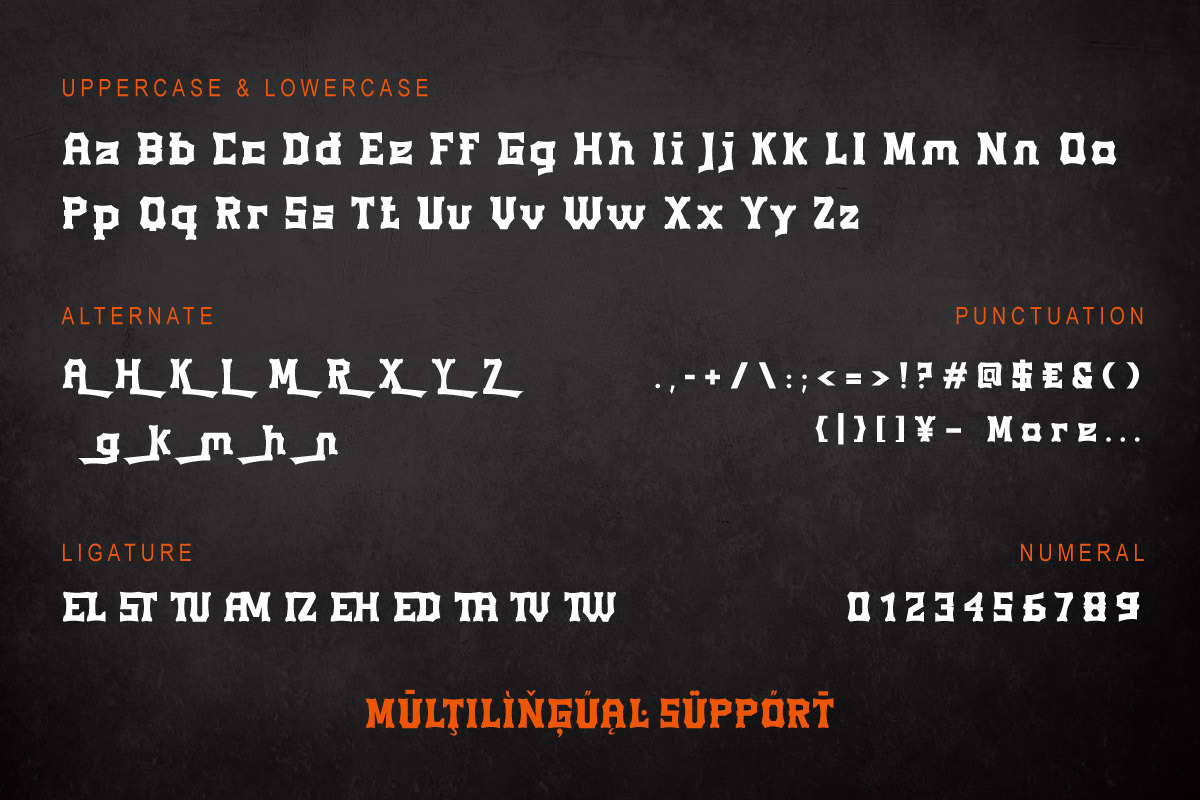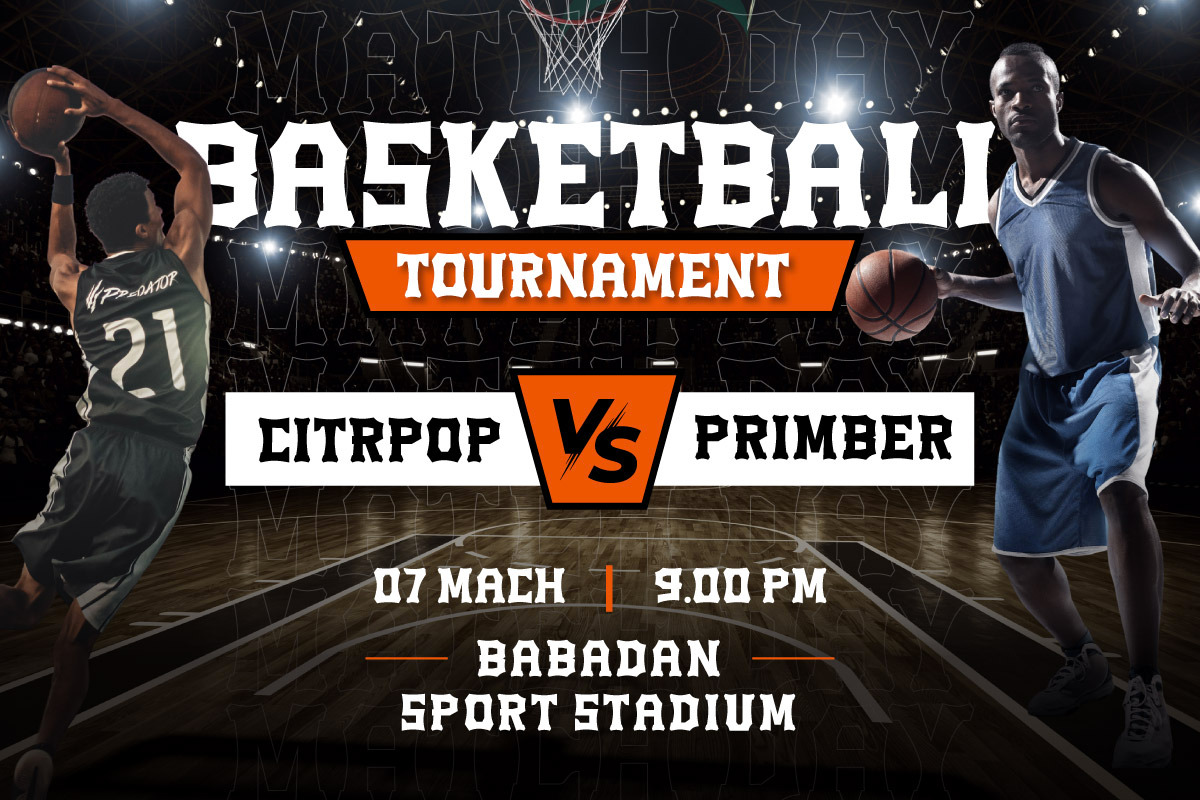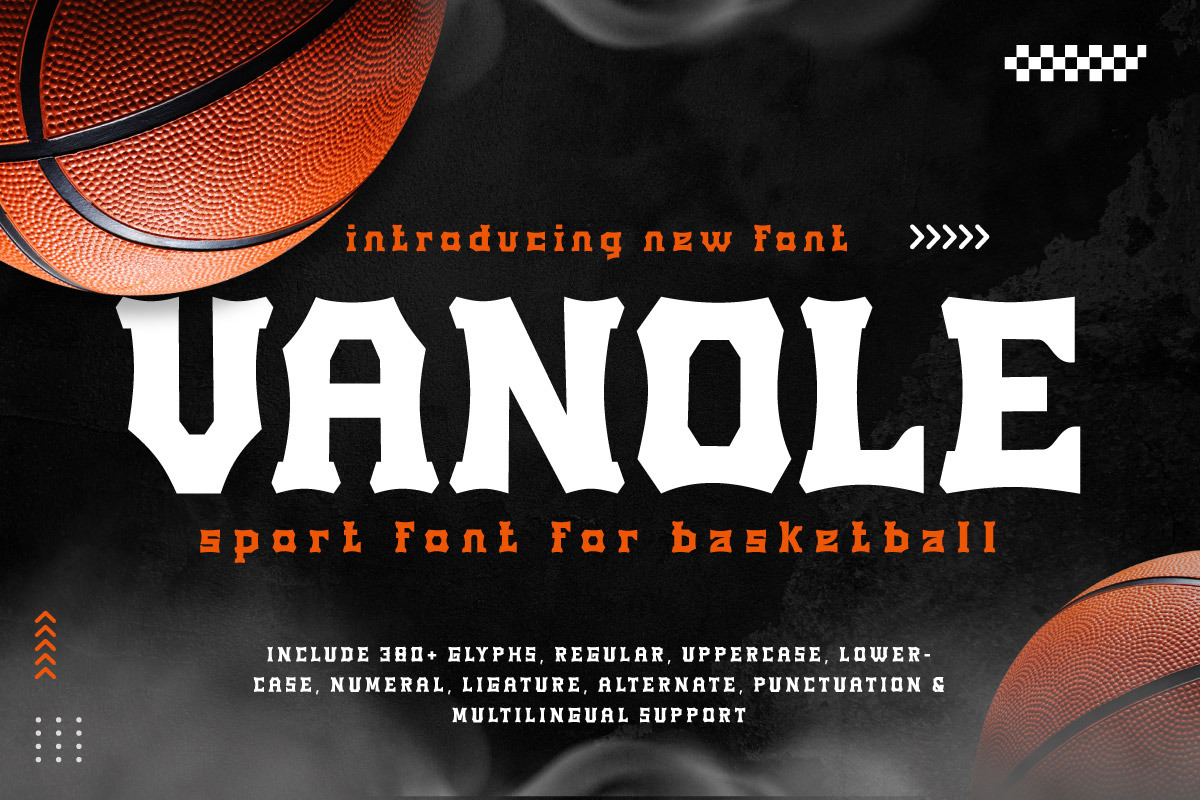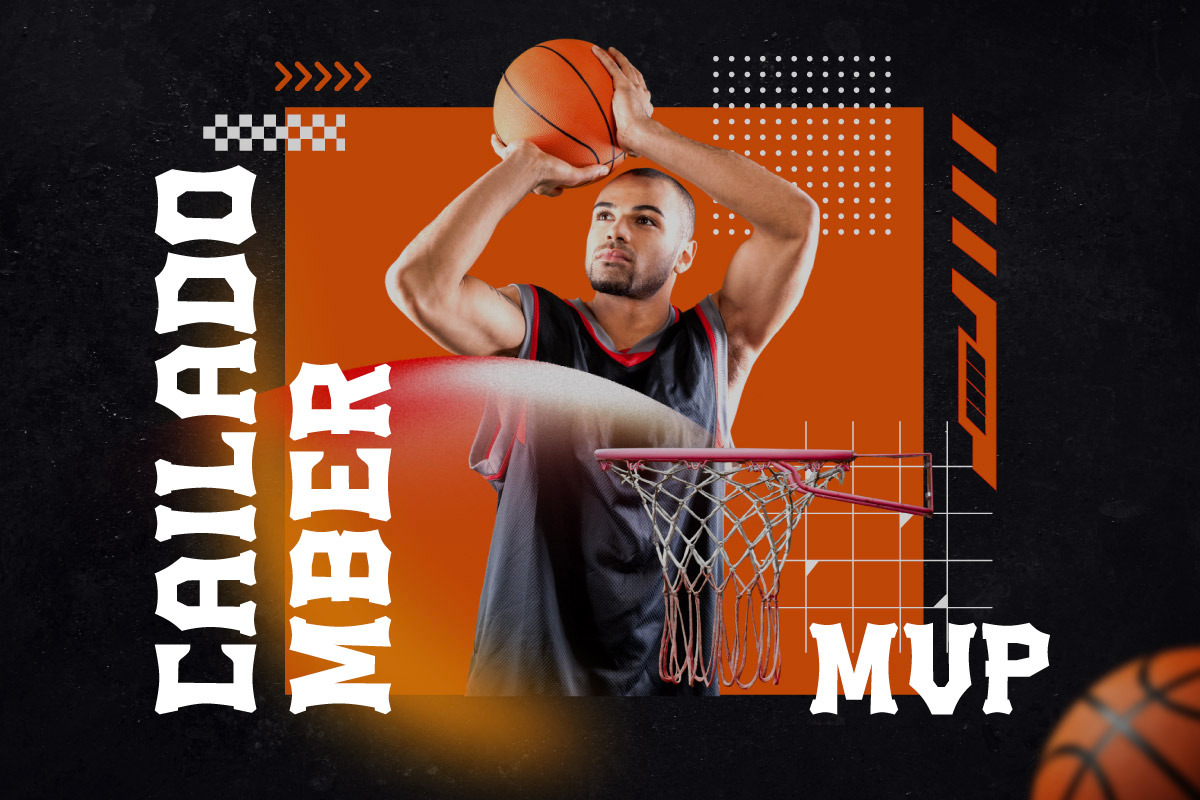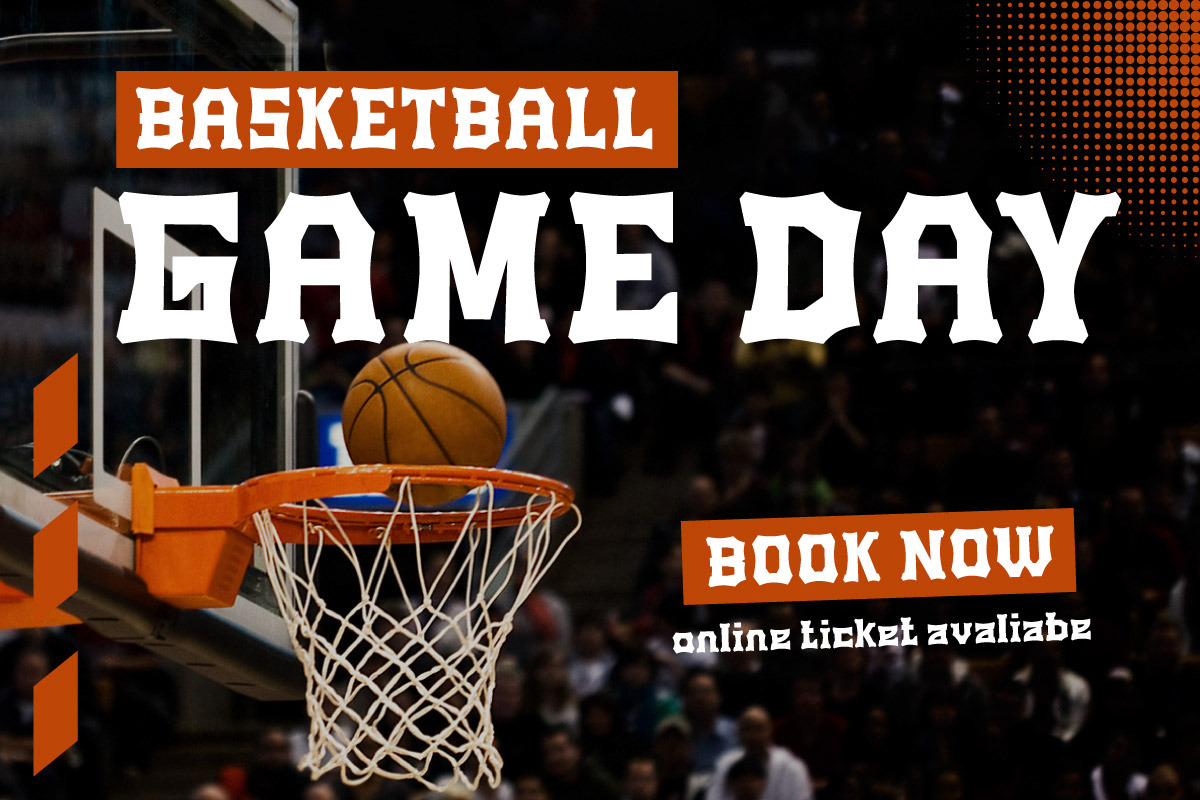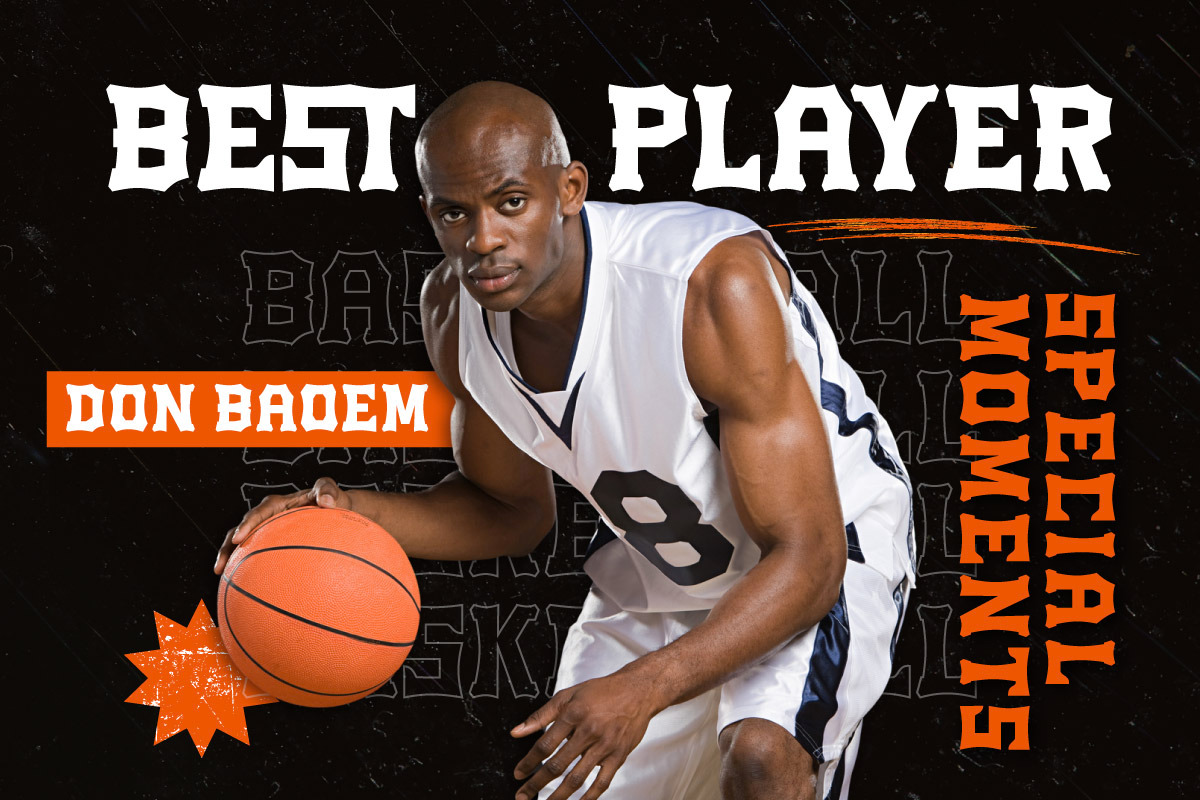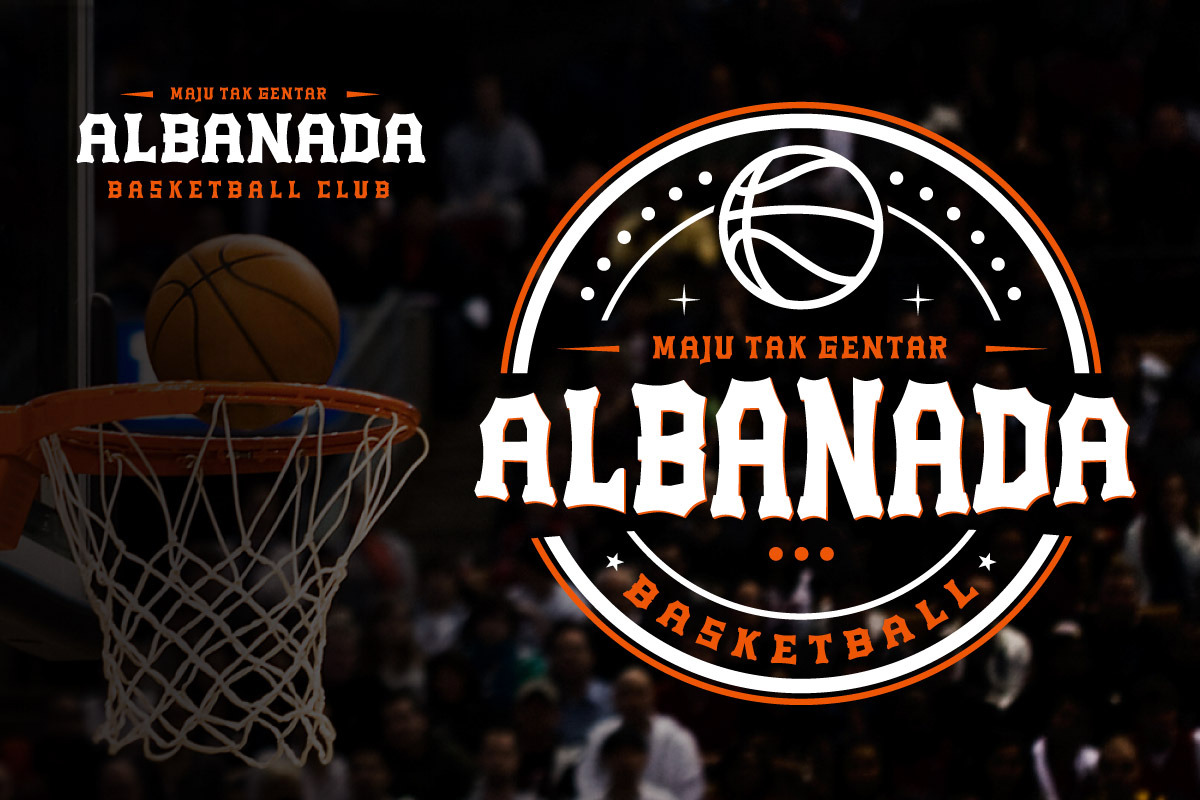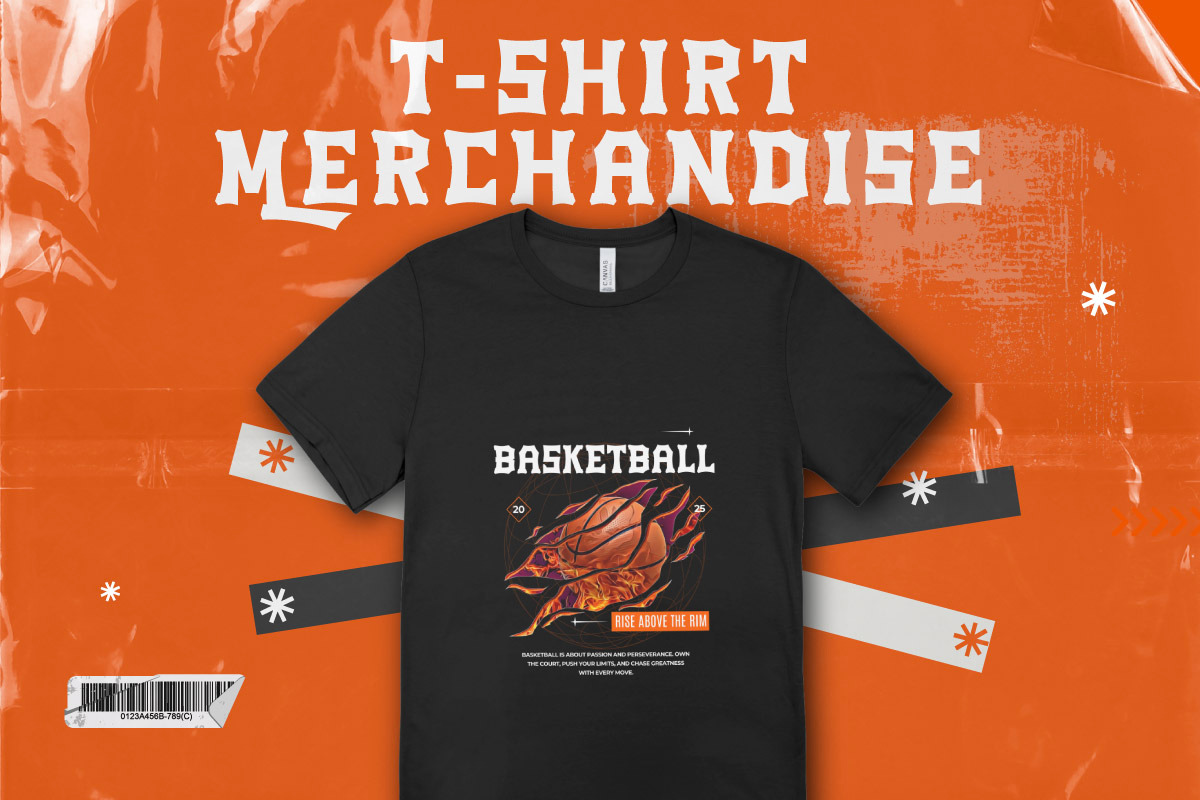
Vanole - Basketball Font Sport Brand
Bring the energy of the court to your designs with VANOLE, a bold and powerful basketball font perfect for sports branding, game posters, team jerseys, and event promotions. Inspired by the fast-paced action and intensity of basketball, this font is ideal for creating eye-catching headlines, player graphics, and event schedules. Whether you're designing for a professional team or a streetball tournament, VANOLE will make your typography stand out with confidence and strength.
- Fonts include Multilingual: Support for 85 languages. Afrikaans, Albanian, Asu, Basque, Bemba, Bena, Breton, Catalan, Chiga, Cornish, Croatian, Czech, Danish, Dutch, Embu, English, Esperanto, Estonian, Filipino, Finnish, French, Friulian, Galician, Gusii, Hungarian, Indonesian, Irish, Italian, Kabuverdianu, Kalenjin, Kamba, Kikuyu, Kinyarwanda, Latvian, Lithuanian, Lower, Sorbian, Luo, Luxembourgish, Luyia, Machame, Makhuwa-Meetto, Makonde, Malagasy, Maltese, Manx, Meru, Morisyen, North, Ndebele, Norwegian Bokmål, Norwegian Nynorsk, Nyankole, Oromo, Polish, Portuguese, Quechua, Romanian, Romansh, Rombo, Rundi, Rwa, Samburu, Sango, Sangu, Scottish, Gaelic, Sena, Serbian, Shambala, Shona, Slovak, Slovenian, Soga, Somali, Spanish, Swahili, Swedish, Swiss German, Taita, Teso, Turkish, Upper Sorbian, Uzbek (Latin), Volapük, Vunjo, Walser, Zulu.